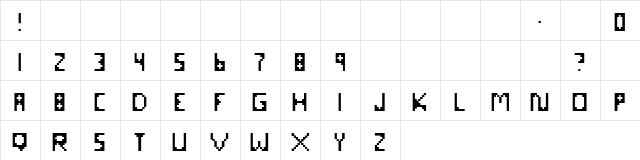
Maximum Radiation Level Regular
Design Context for Maximum Radiation Level Typeface
Maximum Radiation Level takes a measured approach to typography — its balanced proportions and neutral character make it a reliable workhorse for both digital and print work.